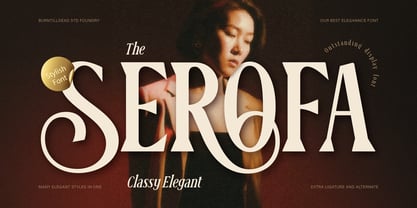
Serofa
by Burntilldead
The Serofa Font Family was designed by Eric Kurniawan and published by Burntilldead. Serofa contains 2 styles and family package options.
Say hello to Serofa! A stylish serif font that brings a touch of classy elegance and modern luxury. With its bold letterforms and decorative curves, Serofa strikes the perfect balance between strength and sophistication.
Featuring stylish ligatures, this font makes it easy to create stunning designs effortlessly. Perfect for luxury branding, fashion, magazines, cosmetics, wedding invitations, logos, and any design project that needs a classy and elegant touch.